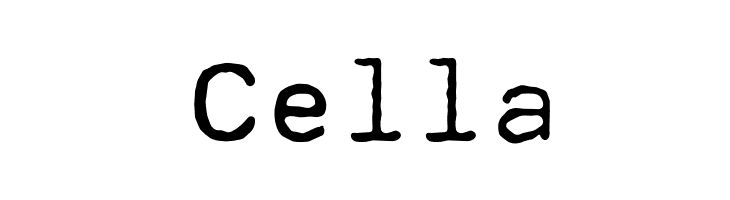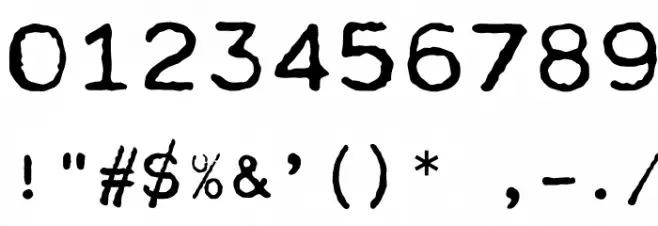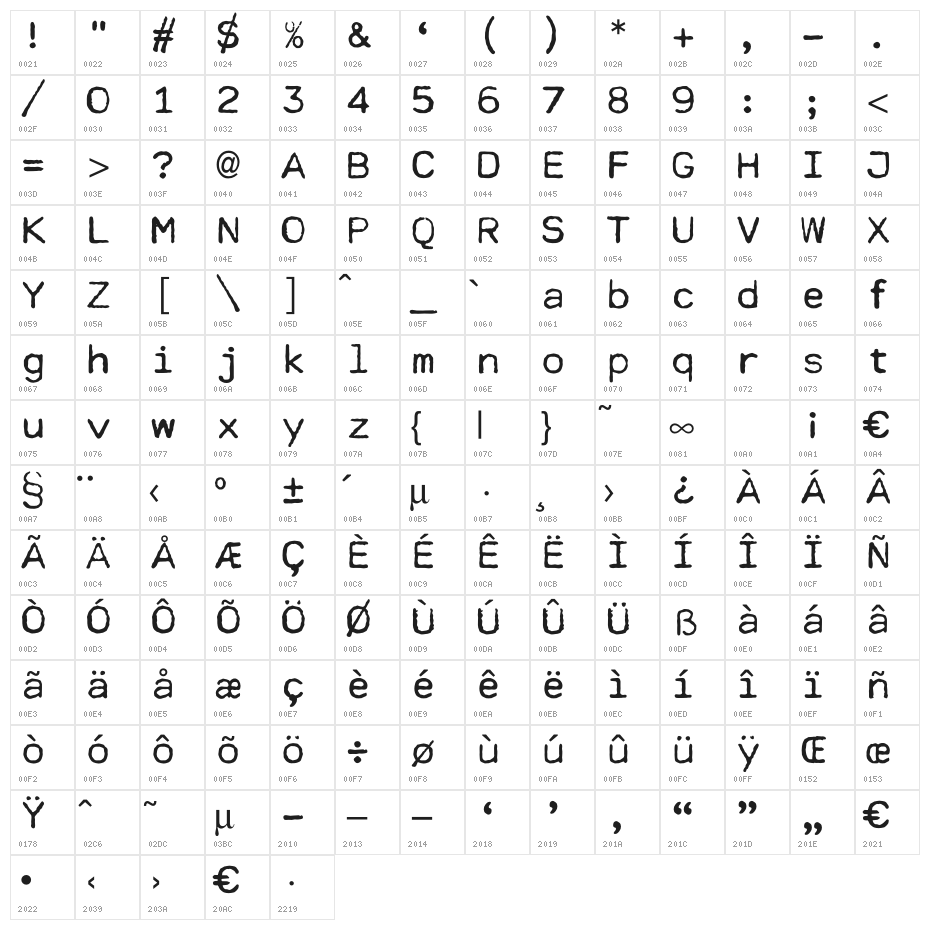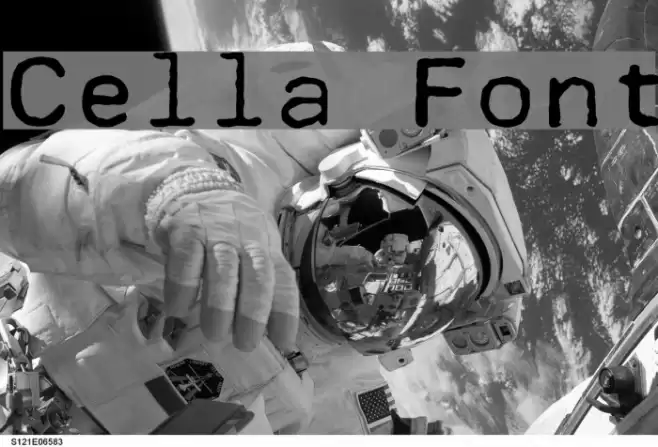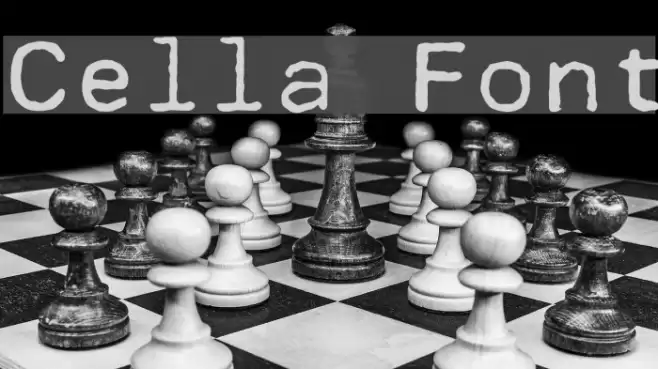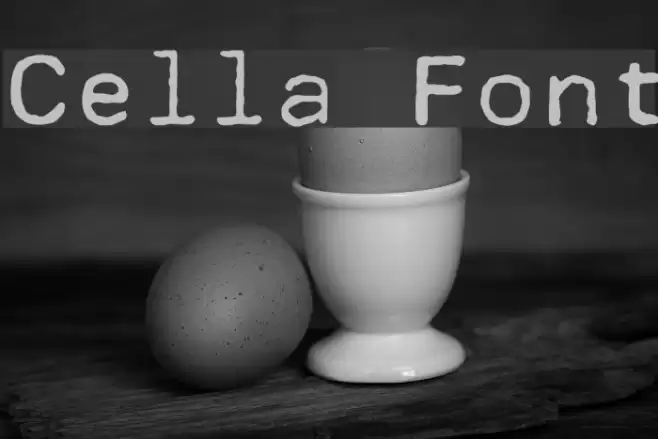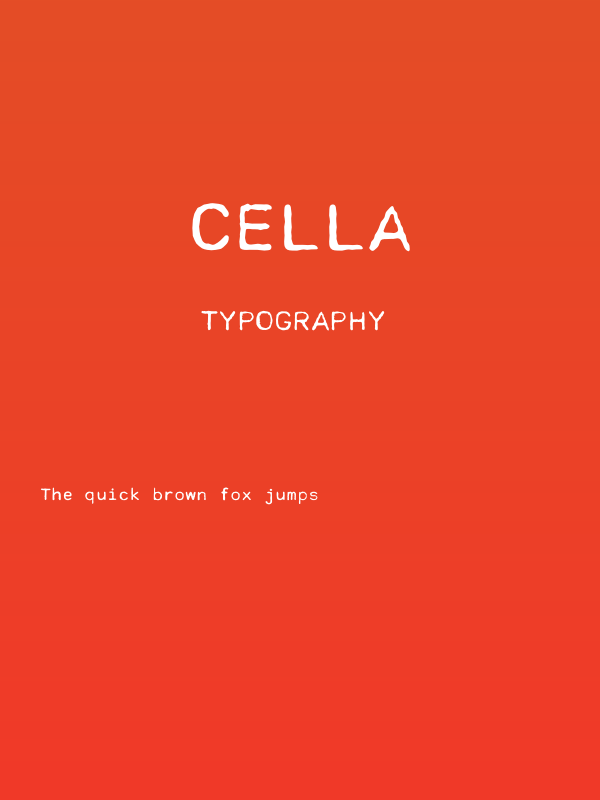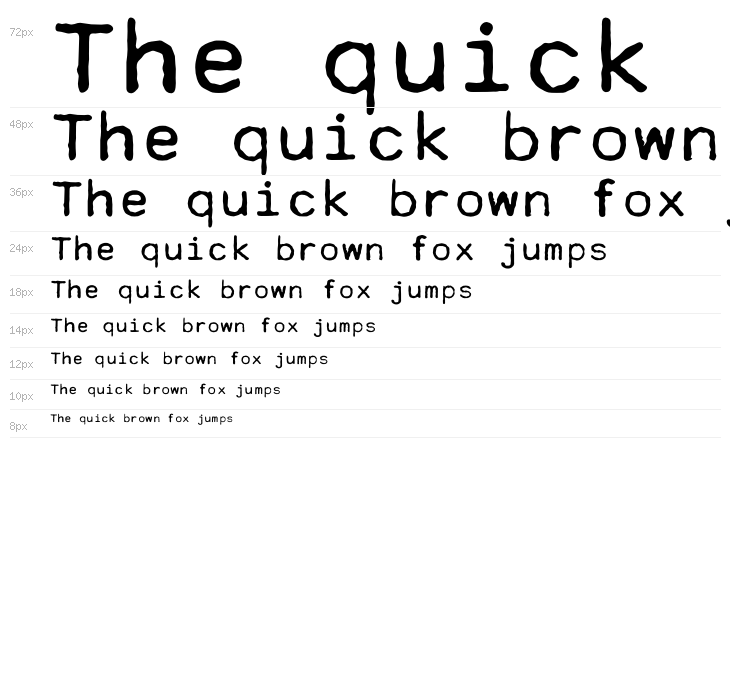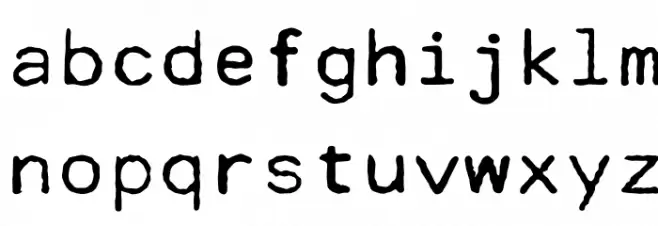
Cella Font
Cella Description
This font exhibits a distinctive, hand-drawn style with irregular, slightly rough edges that give it a casual and organic feel. The characters are bold and have a uniform thickness, contributing to a consistent appearance across the alphabet. The uppercase and lowercase letters maintain a similar width, while the numerals are slightly taller, ensuring readability. Special characters are well-integrated, maintaining the font's unique aesthetic. The overall design is reminiscent of typewriter fonts but with a modern twist, making it suitable for projects that require a personal touch.
| Proposed Projects | Ideal for creative projects such as posters, invitations, and branding that require a personal, handcrafted touch. |